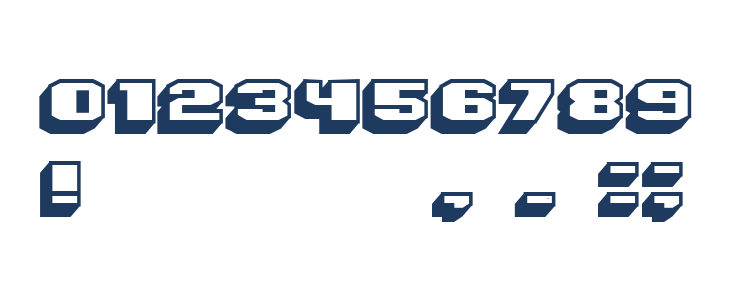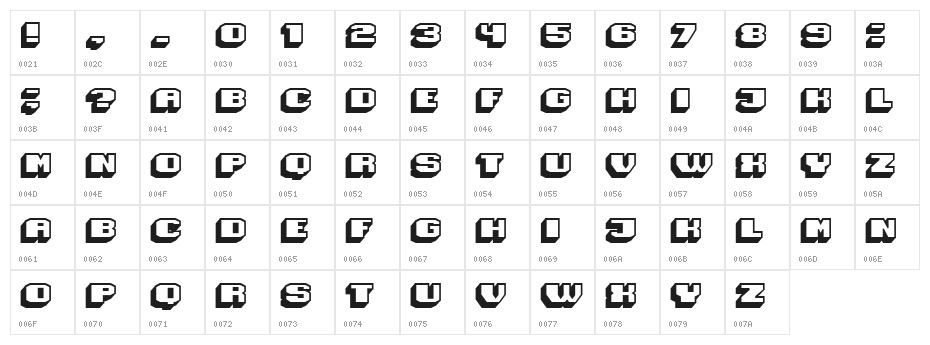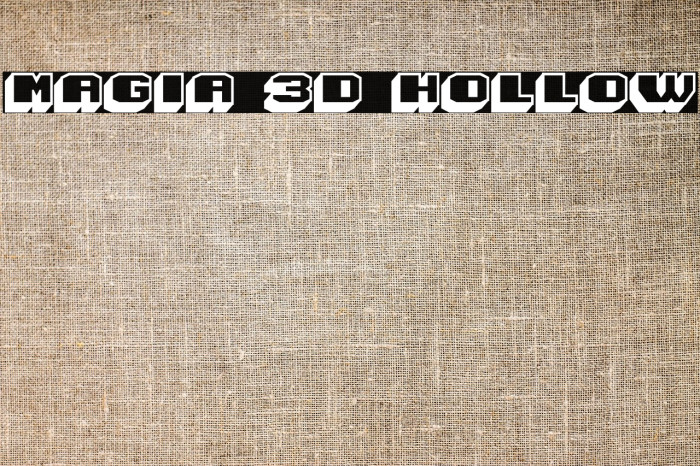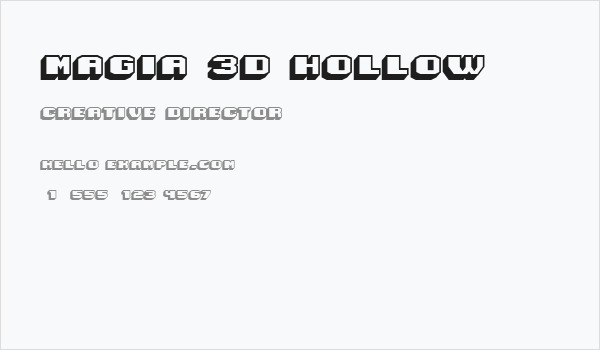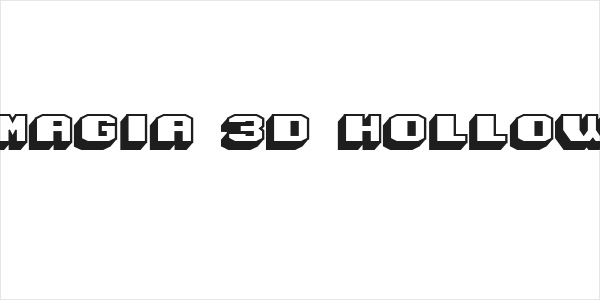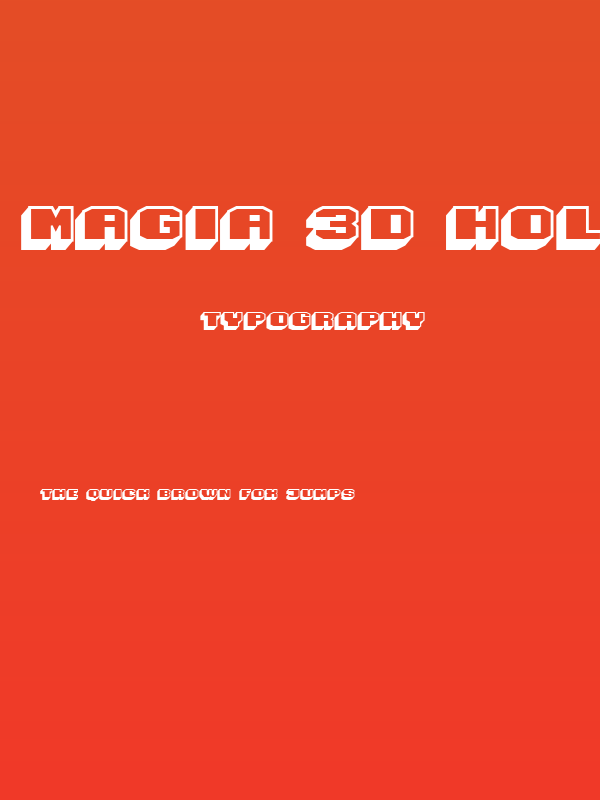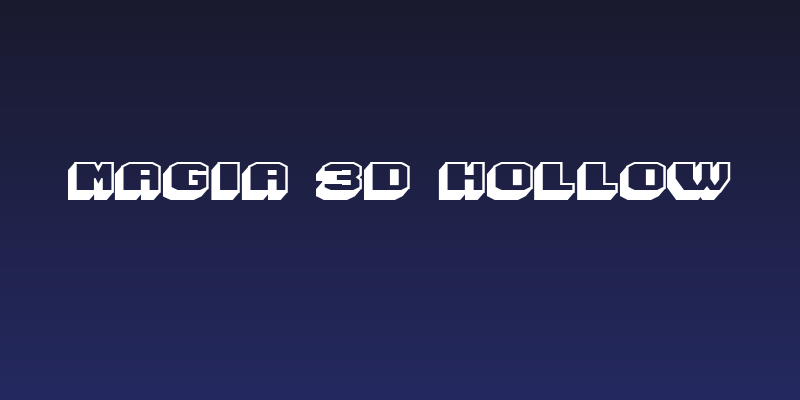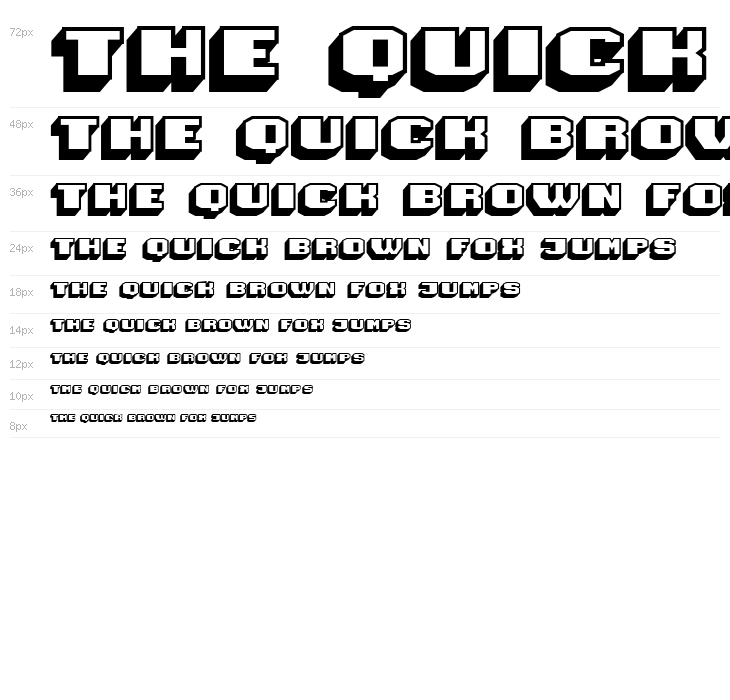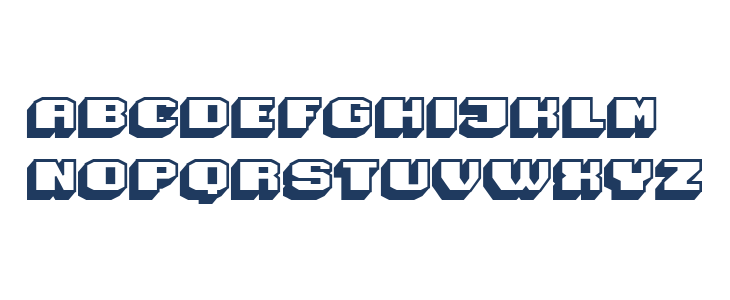
Magia 3D Hollow Font
Magia 3D Hollow Description
This font features a bold, three-dimensional hollow design that gives each character a striking and impactful appearance. The letters are capitalized and exhibit a blocky, geometric style with sharp edges and clean lines. The 3D effect is achieved through a shadow-like extension that adds depth and dimension, making the characters appear as if they are popping out of the page. This style is consistent across both uppercase and lowercase letters, as well as numbers and special characters. The font's unique design makes it highly suitable for attention-grabbing headlines and titles.